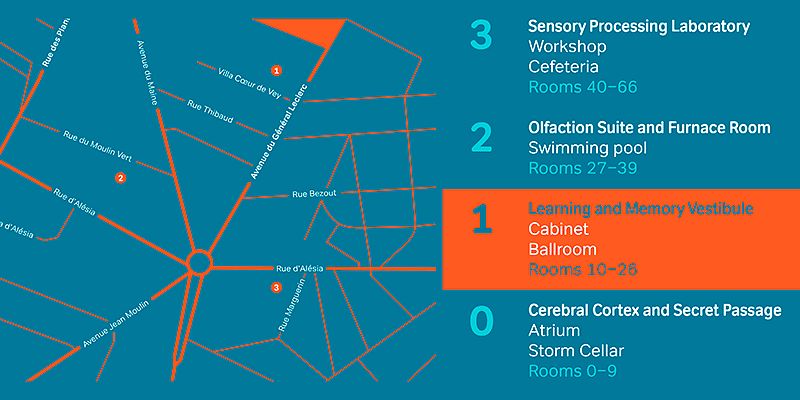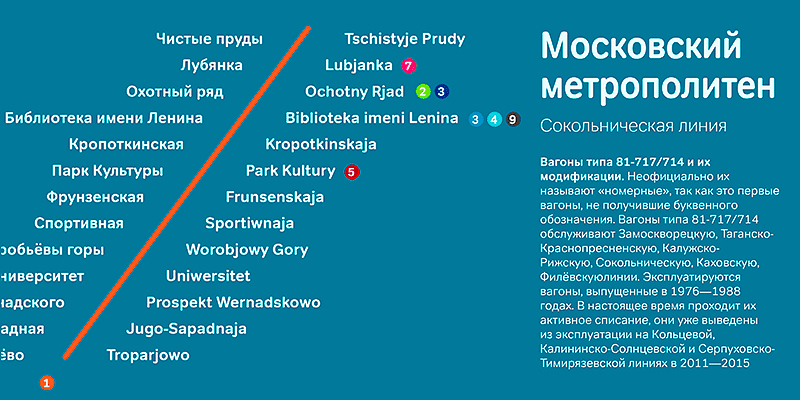
Tondo is a rounded sans serif font family with an appealing personality and superb attention to detail. Whether used on screen or at display sizes, Tondo always stays sharp and clear.